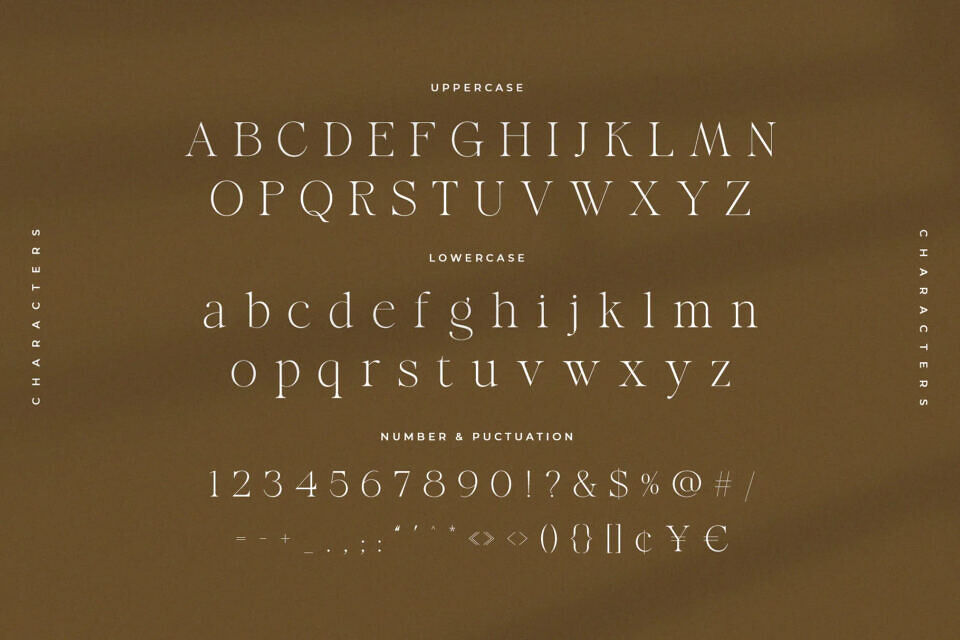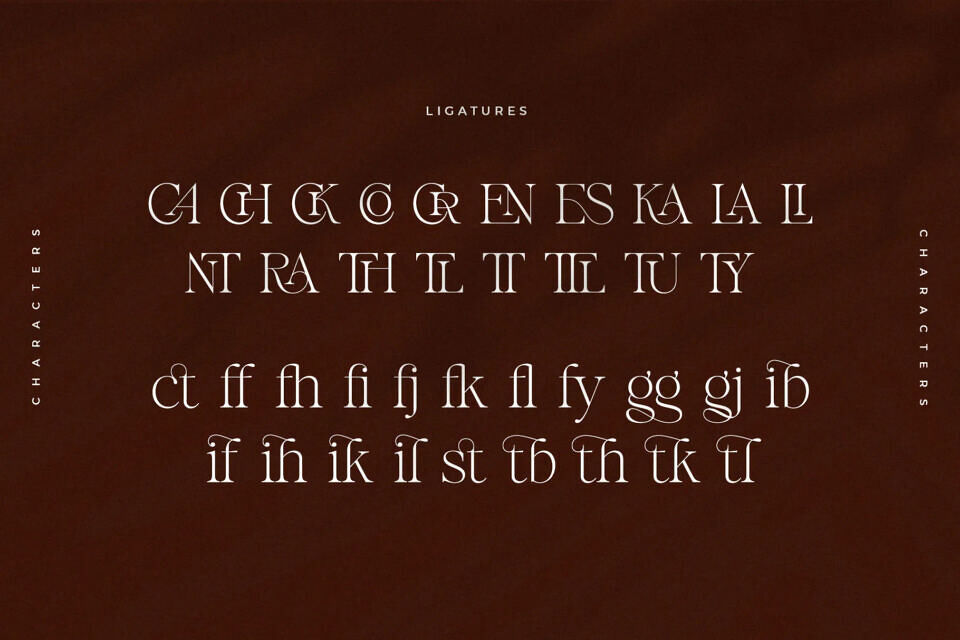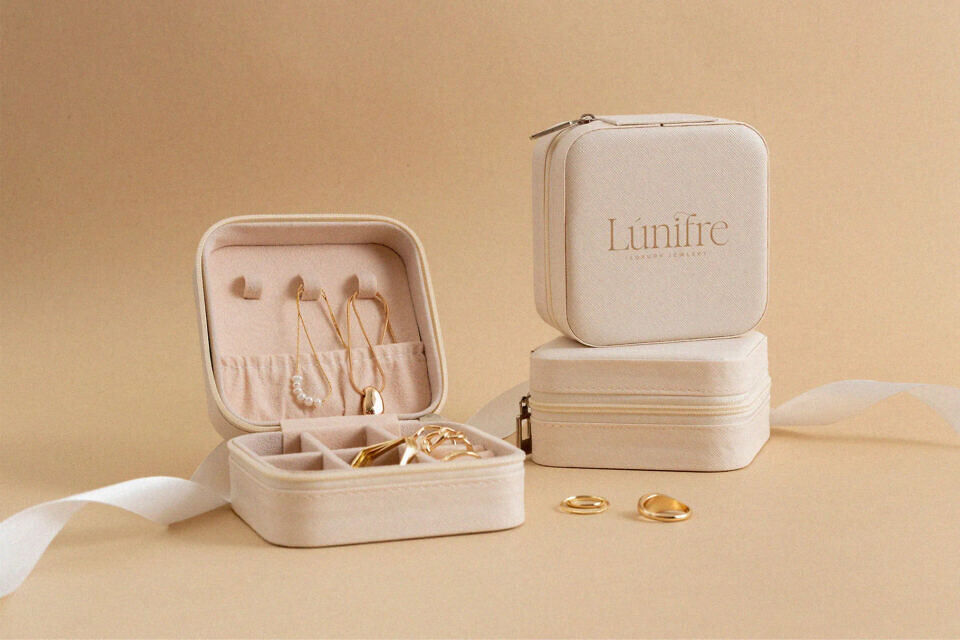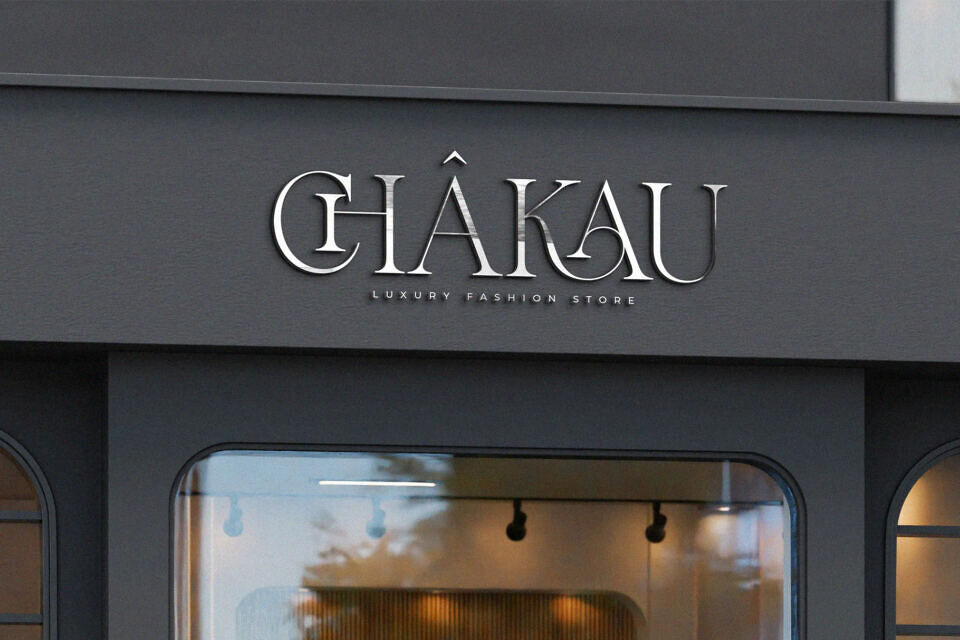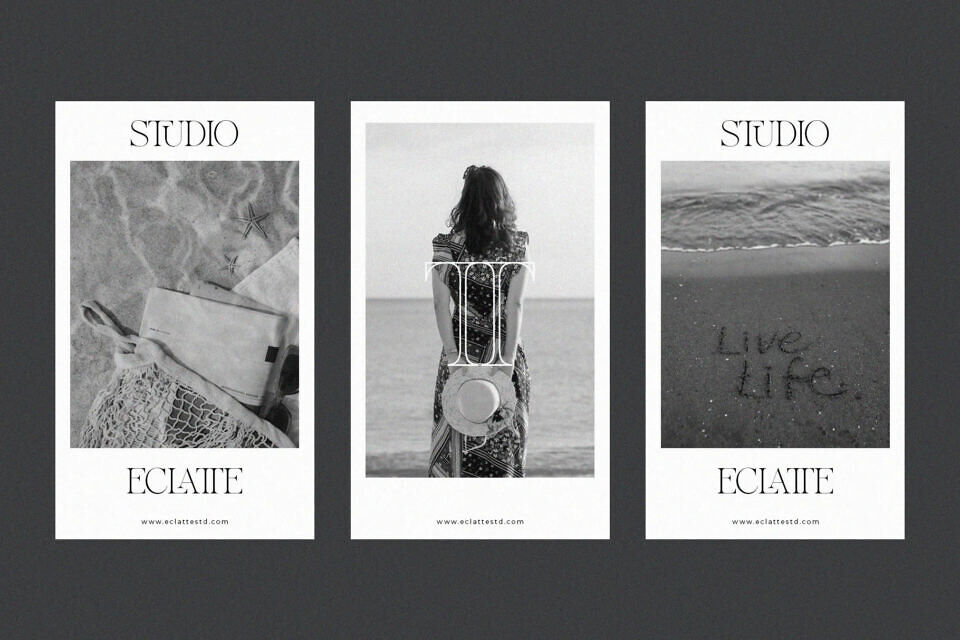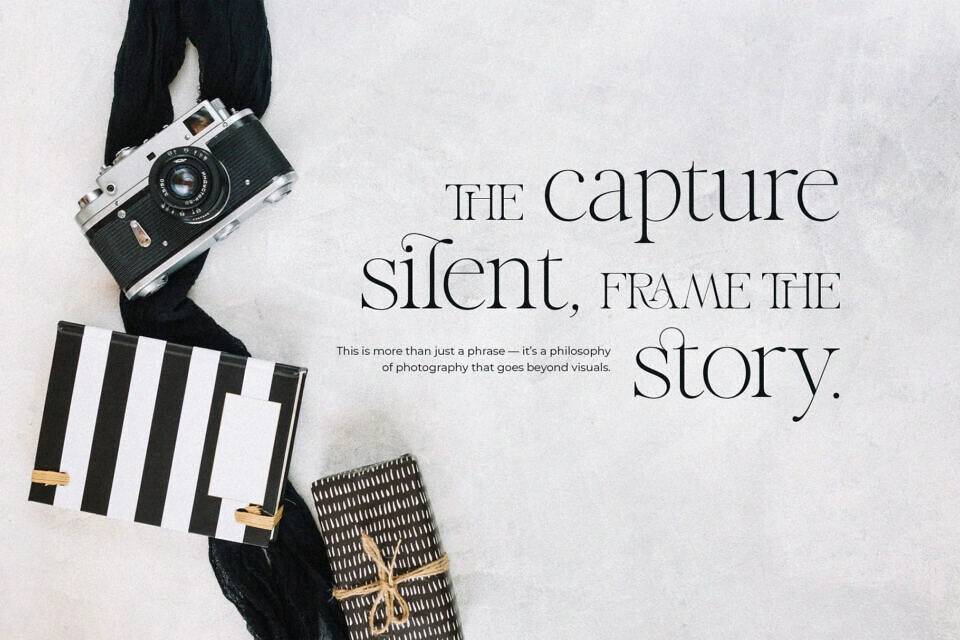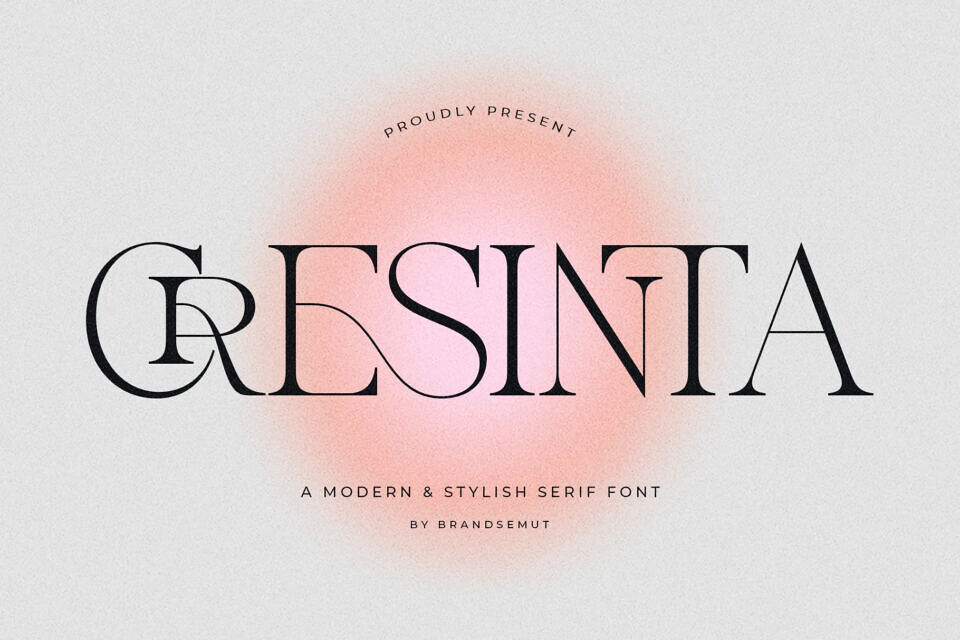
Cresinta Font
Cresinta is a modern and stylish serif font that blends elegance, creativity, and timeless beauty into one sophisticated typeface. With its refined curves, high-contrast strokes, and unique ligature details, Cresinta is the perfect choice for projects that demand a luxurious and professional typographic style.
Inspired by editorial design and high-fashion branding, Cresinta stands out as a versatile serif font that works beautifully for both print and digital media. Whether you’re creating a logo, a magazine headline, a wedding invitation, or a product package, Cresinta delivers a bold yet graceful look that elevates your design.